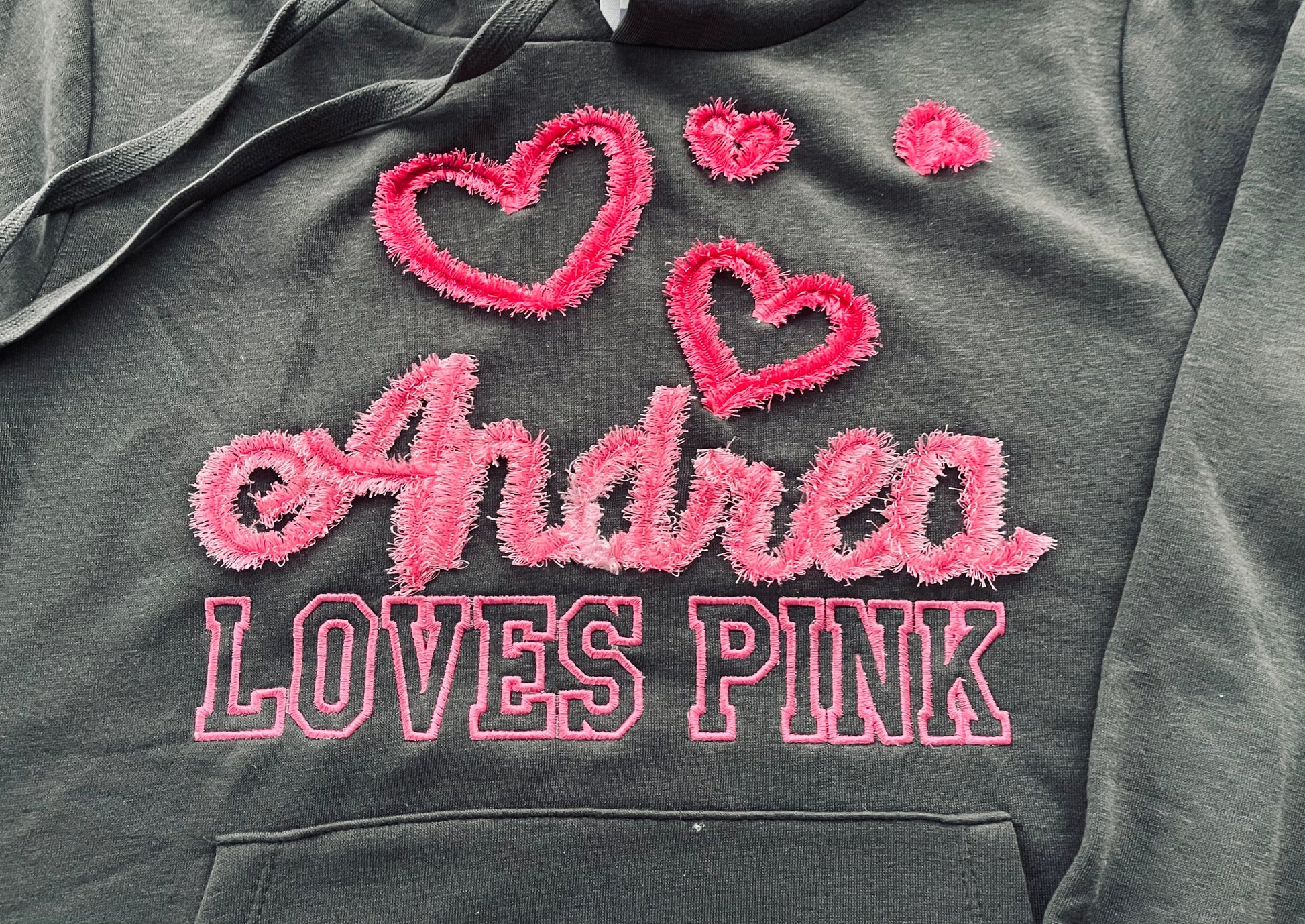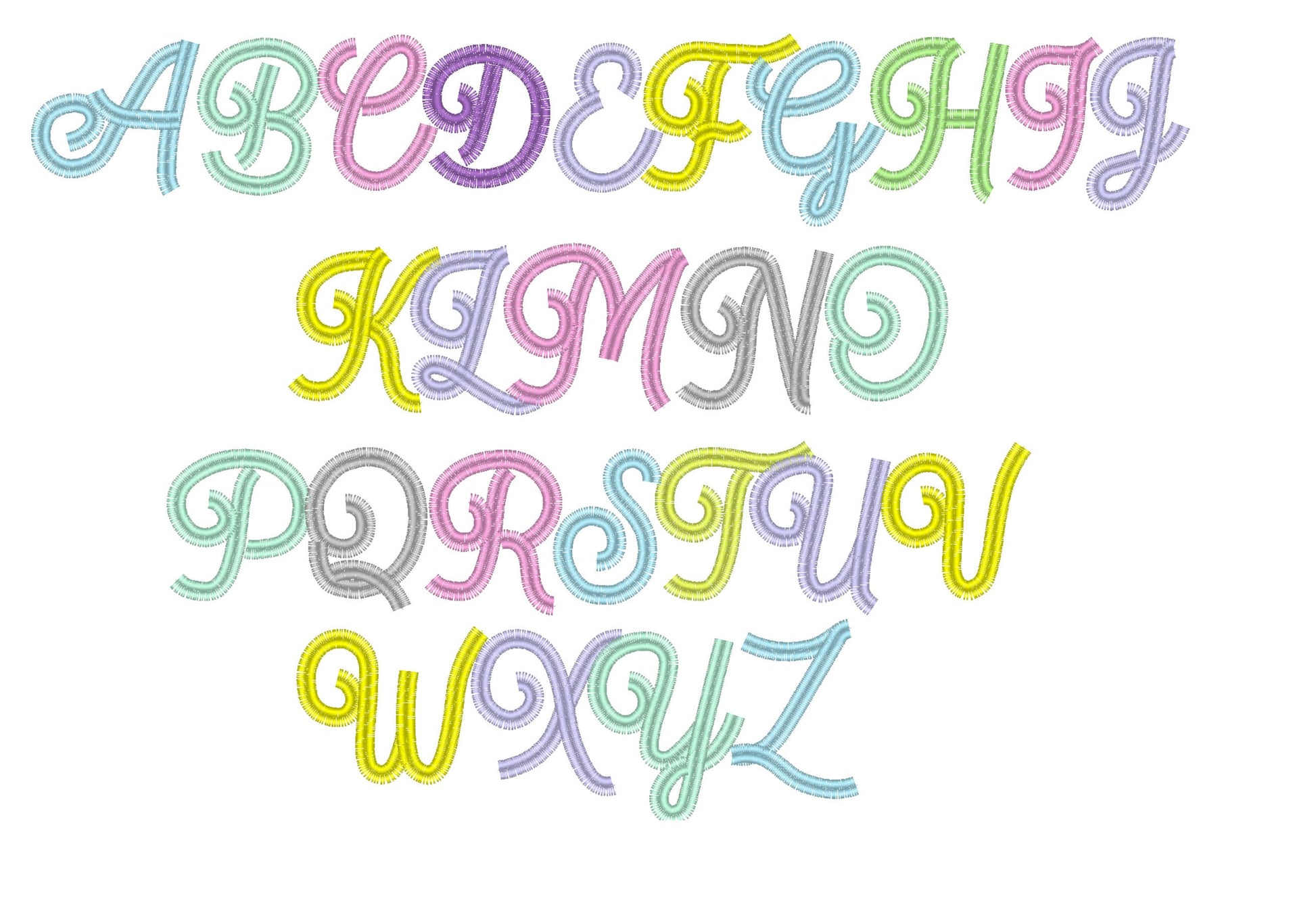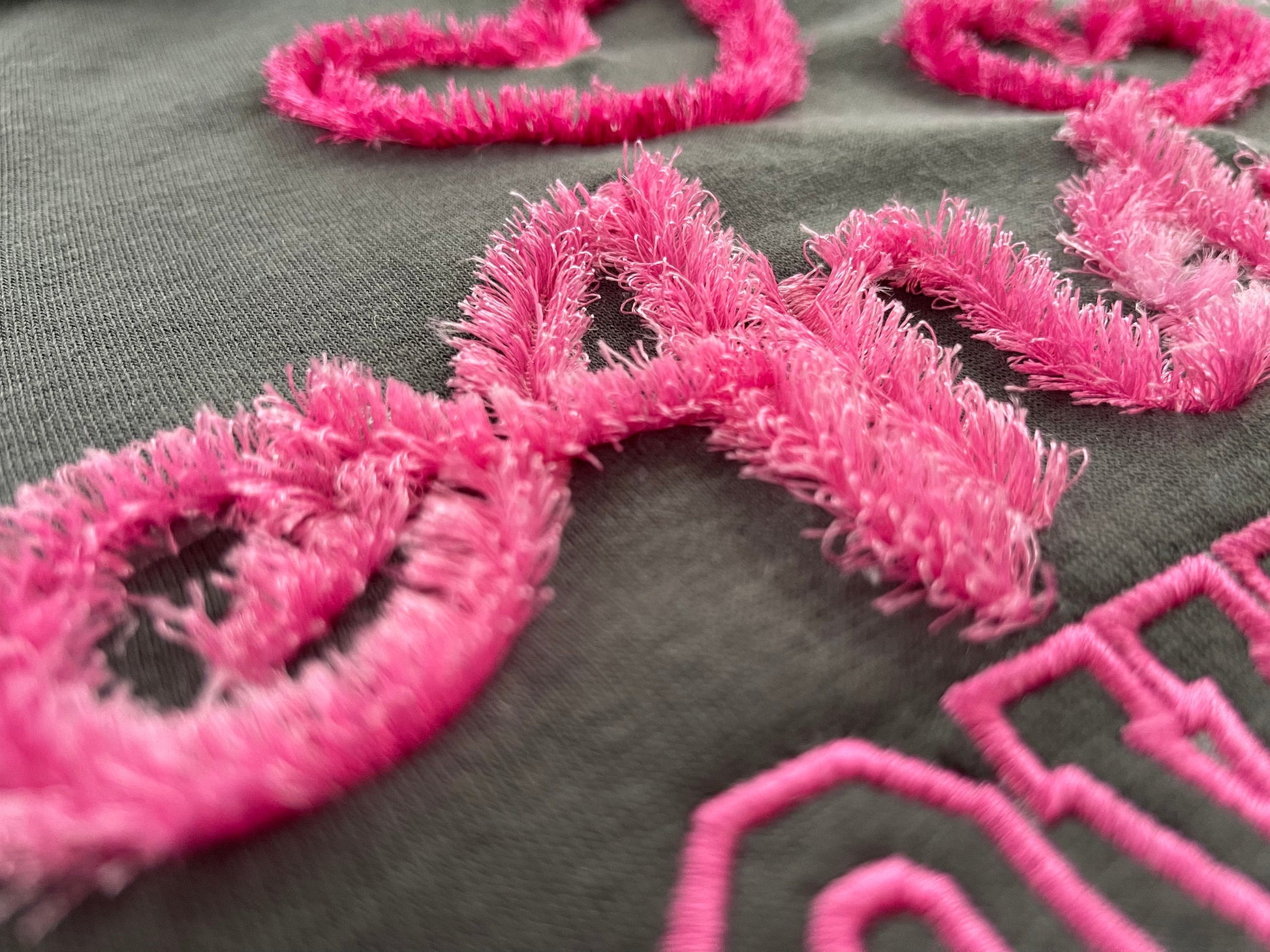
Fringed Handwritten Font Andrea
Connected Fringed FONT alphabet letters machine embroidery designs in assorted sizes chenille girly pretty fluffy letters, BX included
Entire alphabet A-Z.